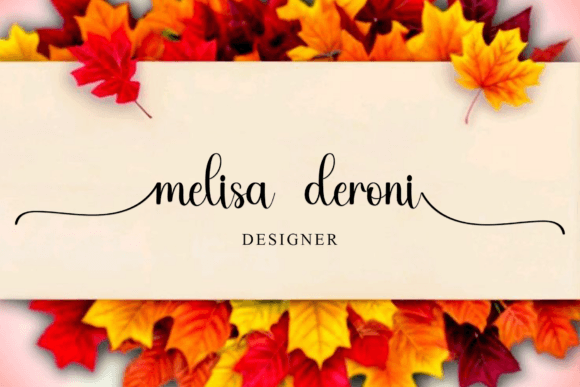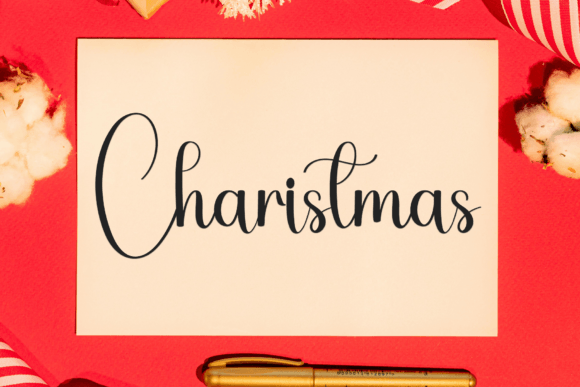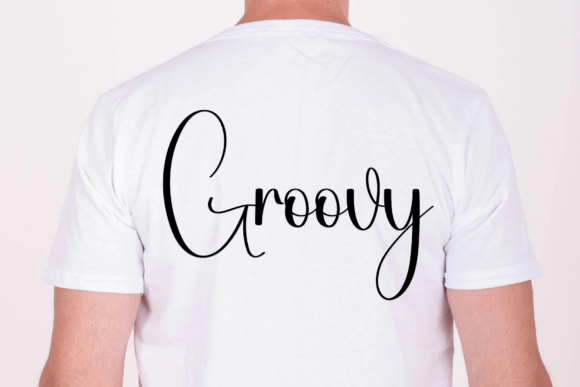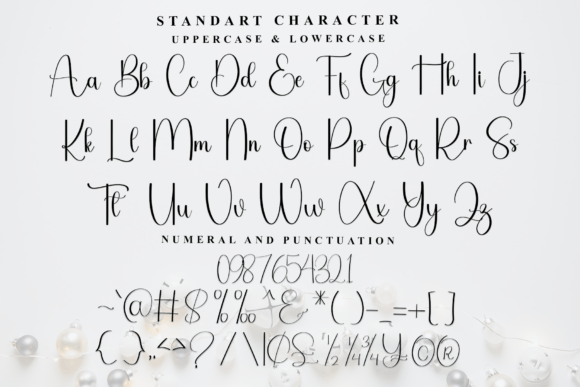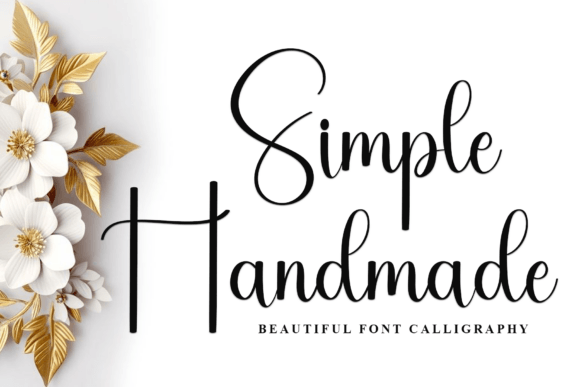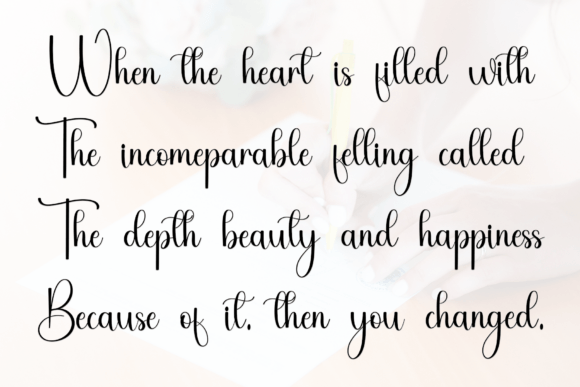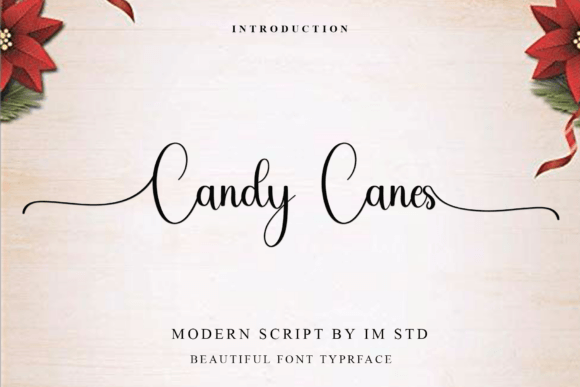
Candy Canes Font: Elevate Your Designs with Elegance and Sophistication
Are you looking for a font that exudes style, beauty, and elegance? Look no further than the Candy Canes Font, a stunning typeface inspired by timeless classic calligraphy. With its contemporary atmosphere and impeccable form, this font is perfect for designers and crafters seeking to add a touch of sophistication to their projects.
What Makes Candy Canes Font So Special?
Candy Canes Font is a beautifully crafted typeface that boasts a unique blend of classic and modern elements. Its elegant lines, balanced structure, and varied glyphs make it an excellent choice for a wide range of design applications, from luxury branding and packaging to wedding invitations and digital marketing materials.
Key Features of Candy Canes Font
- Stylish and Elegant Design: Inspired by classic calligraphy, Candy Canes Font features a sophisticated and refined aesthetic that’s perfect for high-end designs.
- Contemporary Atmosphere: With its clean lines and balanced structure, this font has a modern feel that’s sure to appeal to designers seeking a fresh look.
- Impeccable Form: Every glyph and ligature has been carefully crafted to ensure a seamless and polished appearance.
- Balanced and Varied: Candy Canes Font features a range of weights and styles, allowing you to experiment with different looks and moods.
Candy Canes Font is an excellent choice for designers and crafters working on a variety of projects, including:
- Branding and Packaging: Create luxurious and eye-catching designs for high-end clients.
- Wedding Invitations and Stationery: Add a touch of elegance and sophistication to wedding designs and other stationery materials.
- Digital Marketing Materials: Elevate your social media graphics, email campaigns, and website designs with a stylish and modern font.
- Crafting and DIY Projects: Use Candy Canes Font to add a personal touch to your crafting and DIY projects, such as handmade cards, gift tags, and more.
Tips for Using Candy Canes Font
To get the most out of Candy Canes Font, try the following tips:
- Experiment with Different Weights and Styles: Take advantage of the font’s varied glyphs and ligatures to create unique and eye-catching designs.
- Pair with Other Fonts: Combine Candy Canes Font with other fonts to create interesting and dynamic typography.
- Use for Headings and Titles: Take advantage of the font’s elegant lines and sophisticated aesthetic to create stunning headings and titles.
Candy Canes Font is a truly exceptional typeface that offers a unique blend of style, elegance, and sophistication. With its PUA encoding, balanced structure, and varied glyphs, this font is perfect for designers and crafters seeking to elevate their designs and add a touch of luxury. Whether you’re working on branding and packaging, wedding invitations, or digital marketing materials, Candy Canes Font is sure to impress.